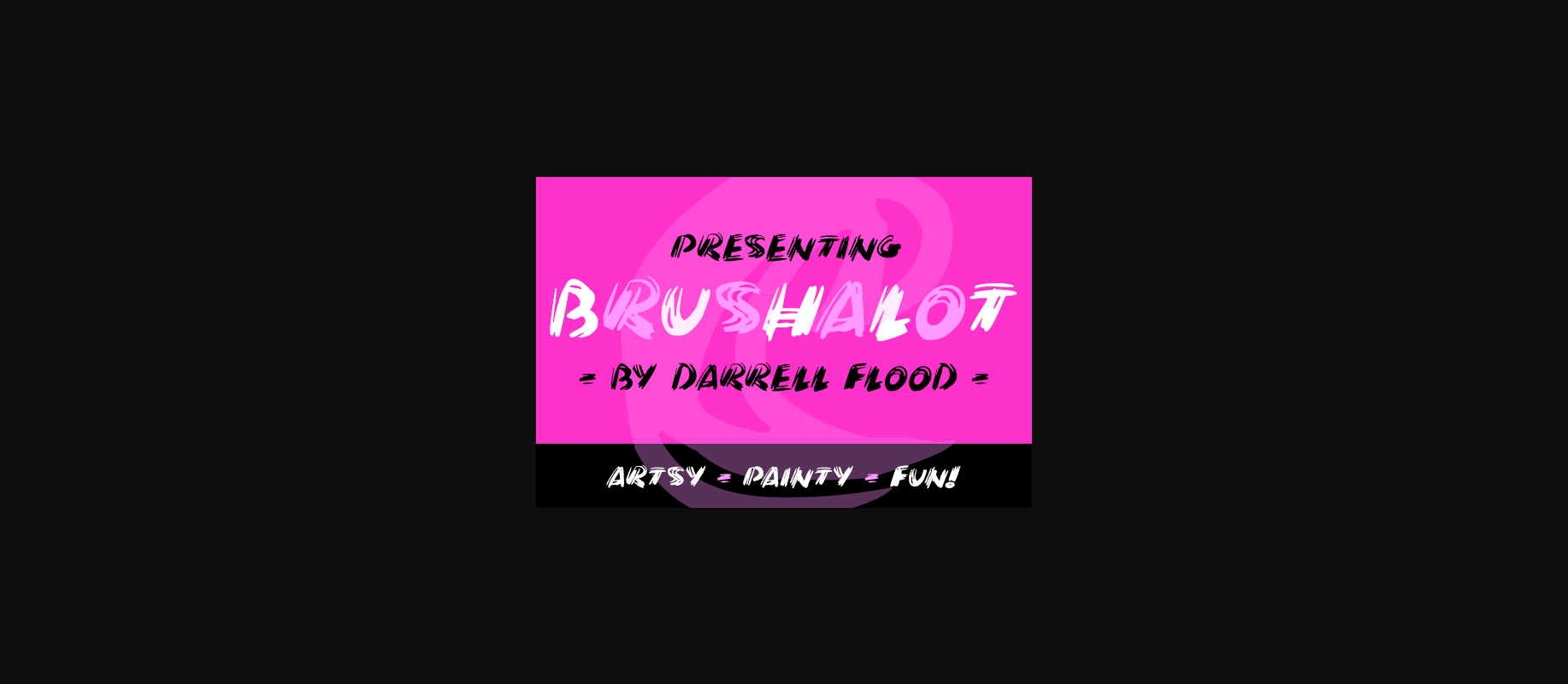
Brushalot Font
About Brushalot Font
Brushalot is a loose, bristly, brush-stroke font, with thick letterforms. Perfect for art projects, classroom themes and signboards, Brushalot is a stunning brush-stroke font to choose from.